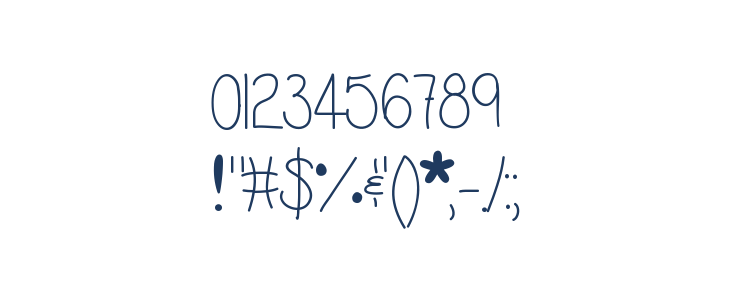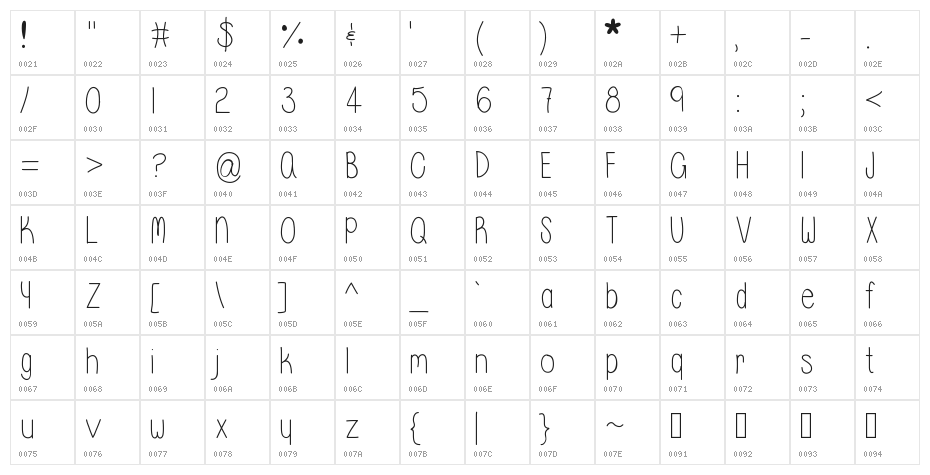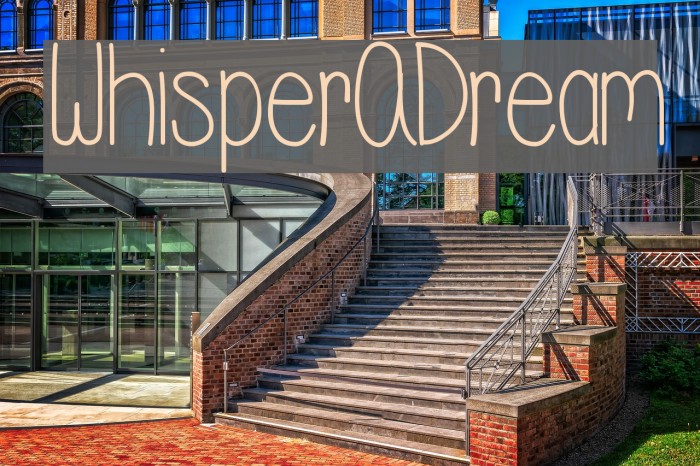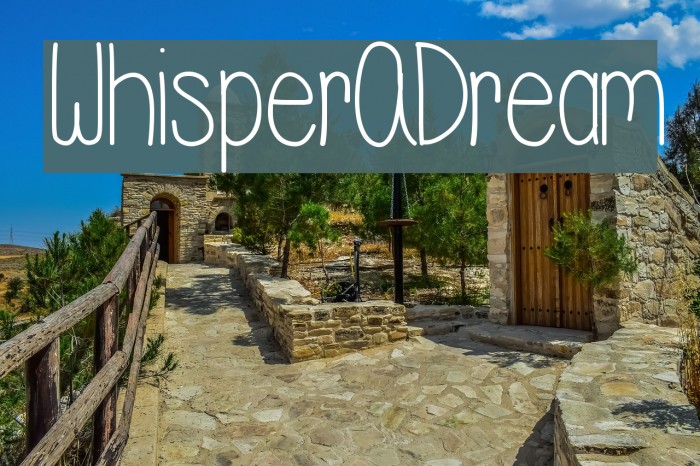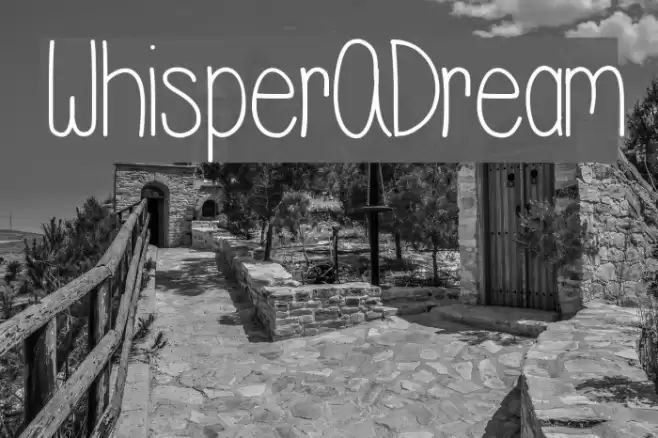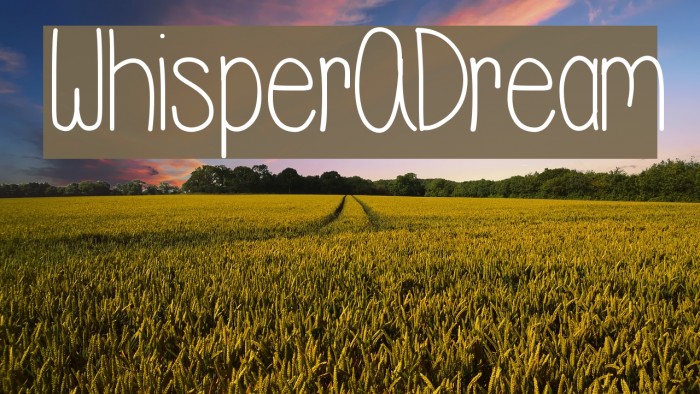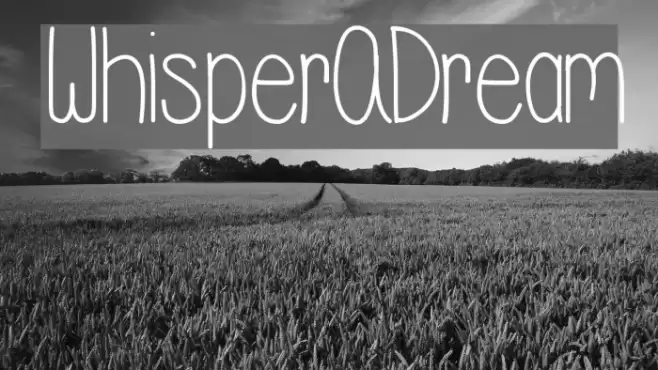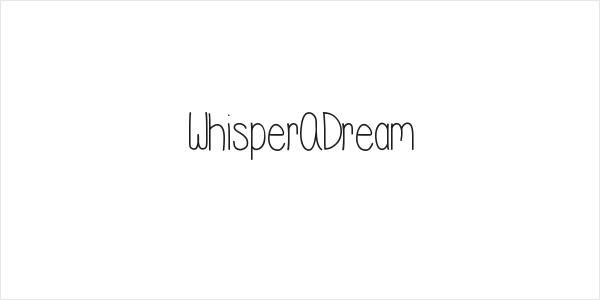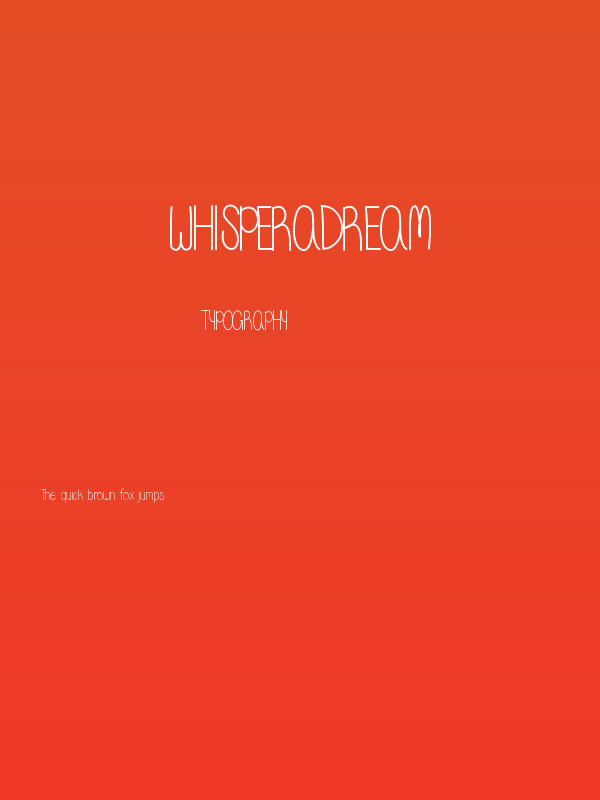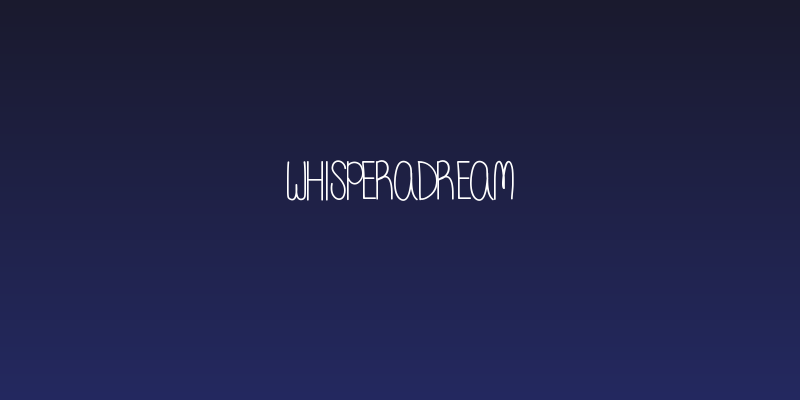
WhisperADream Font
WhisperADream Description
This font features a playful and whimsical style with tall, narrow letters that have a hand-drawn appearance. The characters are slightly irregular, adding a sense of charm and personality. The uppercase letters are particularly elongated, while the lowercase letters maintain a consistent height, creating a harmonious balance. The numbers and special characters follow the same playful aesthetic, making the font versatile for creative projects. The strokes are consistent in width, providing a clean and modern look, while the overall design is approachable and friendly.
| Proposed Projects | Ideal for children's books, greeting cards, playful branding, and creative posters. |